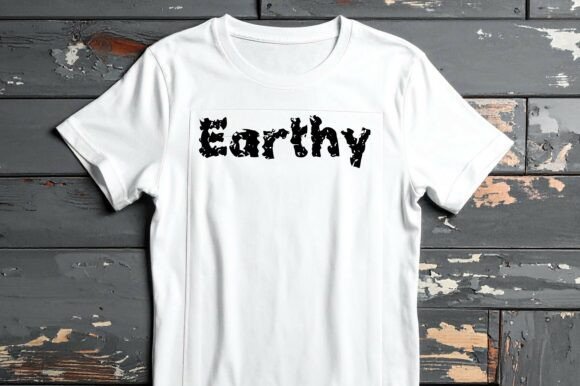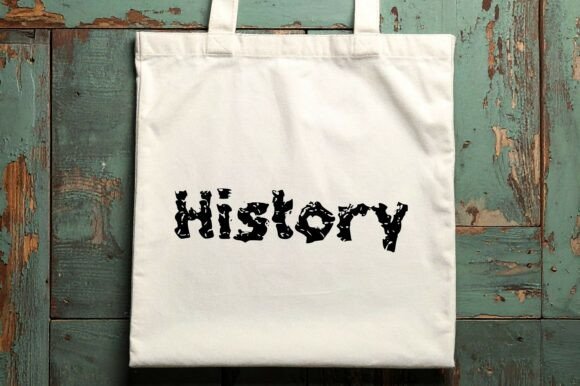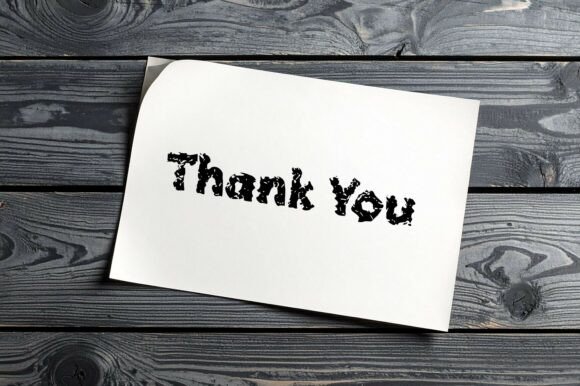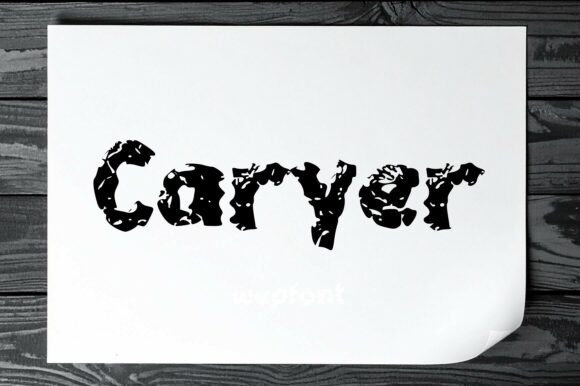
Unleash the Raw Power of Caryer Font in Your Design Endeavors
Are you looking for a font that exudes gritty authenticity and untamed power? Look no further than Caryer, a robust and bold display font that’s perfect for designers and crafters seeking to add a touch of rugged charm to their projects. Inspired by aged woodcut imprints, rustic metal stamps, and weathered signage from yesteryears, Caryer is a font that radiates a raw allure that’s sure to make your designs stand out.
The Distinctive Characteristics of Caryer Font
Caryer’s robust, hefty text and distinctive distressed finish make it a non-negotiable option for designers seeking to create heritage branding, rustic event marketing, adventurist-themed graphics, vintage attire designs, and other ventures that crave a firm, enduring, and sincere image projection. The font’s exceptional distressed texture, organically built into each character, instantly transports you to an era of time-tested craftsmanship and rugged aesthetic charm with every stroke.
A Font that’s Rich in History and Character
Caryer’s design is reminiscent of a bygone era, evoking memories of skillfully crafted wooden signs, metalwork, and other artisanal creations that have stood the test of time. The font’s rugged, weathered appearance is as though it has been sculpted by time and natural elements, lending it an air of authenticity that’s hard to find in modern fonts.
Comprehensive and Versatile
Caryer is a comprehensive font that boasts full upper and lower case letters and numbers, offering creative flexibility to designers across various platforms. Whether you’re working on a branding project, designing a logo, or creating marketing materials, Caryer provides the perfect combination of style and substance to make your designs shine.
Caryer is a font that’s specifically designed with designers and crafters in mind. Its unique distressed texture and rugged charm make it perfect for a wide range of applications, including:
- Heritage branding: Add a touch of history and authenticity to your brand with Caryer’s rugged, vintage charm.
- Rustic event marketing: Create eye-catching marketing materials that evoke the great outdoors with Caryer’s distressed texture and bold typography.
- Adventurist-themed graphics: Perfect for designers creating graphics for outdoor enthusiasts, Caryer’s rugged charm and raw power are sure to resonate.
- Vintage attire designs: Add a touch of nostalgia and charm to your fashion designs with Caryer’s unique distressed texture and classic typography.
Why Choose Caryer Font?
So why choose Caryer font for your design endeavors? Here are just a few compelling reasons:
- Unique and distinctive: Caryer’s distressed texture and rugged charm make it a one-of-a-kind font that’s sure to make your designs stand out.
- Versatile: With full upper and lower case letters and numbers, Caryer provides the creative flexibility you need to bring your designs to life.
- Authentic: Caryer’s design is inspired by aged woodcut imprints, rustic metal stamps, and weathered signage, lending it an air of authenticity that’s hard to find in modern fonts.
In conclusion, Caryer font is a robust and bold display font that’s perfect for designers and crafters seeking to add a touch of gritty authenticity and untamed power to their projects. With its distinctive distressed texture, rugged charm, and comprehensive character set, Caryer is the perfect choice for a wide range of applications. So why settle for a generic font when you can unleash the raw power of Caryer in your design endeavors?